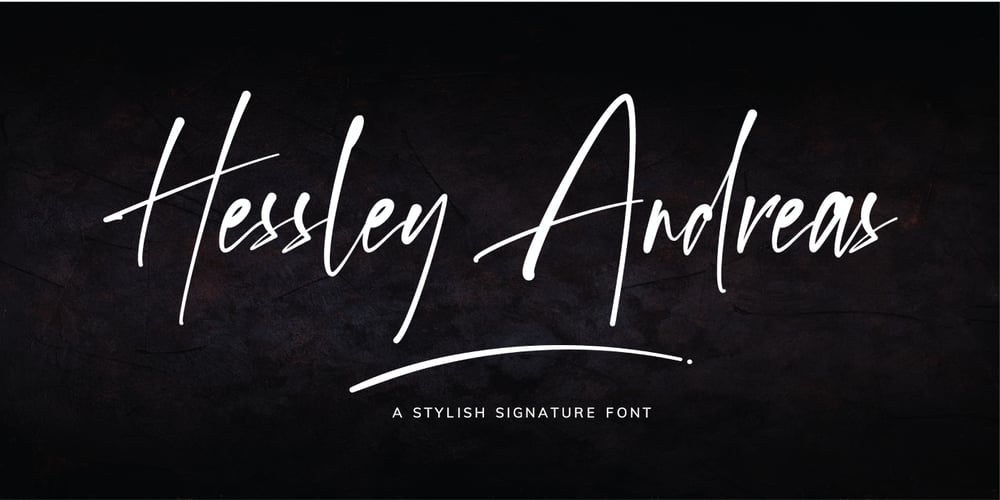
Hessley Andreas Font Family was designed by David Kasidi and published by Silverdav. Hessley Andreas contains 1 styles and family package options. Hessley Andreas is a high energy signature-style script font guaranteed to make a big impression. Digitally hand-drawn, it’s a super-clean smooth flow and high-intensity pen strokes make an unmistakable impact in logos, branding projects, large header text, and product packaging. Hessley Andreas is packed full of extra features to give you plenty of customization options. This includes; a full set of upper and lowercase letters, and a full set of swash lowercase end forms to give your text that extra flair and finesse and Multilingual Support. Hessley Andreas Beginning & Ending Swash Multilingual Support If you have any question, please contact us